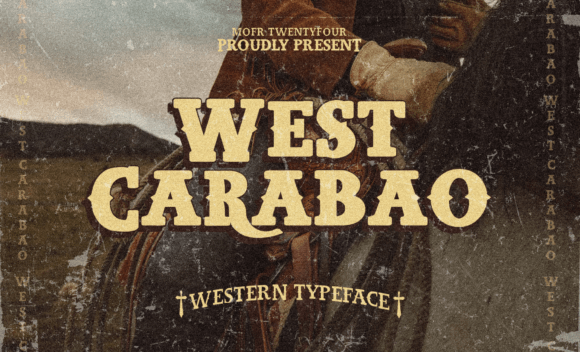
Journey through time with West Carabao, a captivating vintage font that seamlessly weaves together the elegance of the past with the vibrancy of the present. Inspired by the rich heritage of vintage design, this versatile font family, delicately crafted by Mofr24 Studio, offers a diverse selection of styles, ranging from the slender Thin to the bold Black, each accompanied by an alluring italic counterpart. But that's not all – West Carabao's mesmerizing shadow effect adds an extra layer of depth and intrigue to your designs.
With West Carabao as your creative companion, your imagination will soar as you embark on a design odyssey. Its multilingual prowess makes it a global font, capable of captivating audiences worldwide. Unleash your creativity and craft stunning posters that exude a timeless charm, or elevate your marketing materials with a touch of vintage sophistication. Let West Carabao be the beacon guiding your design endeavors, whether you're creating eye-catching titles, unique T-shirt designs, or captivating game visuals.
Immerse yourself in the boundless possibilities of art with West Carabao as your trusted font. Its versatility knows no bounds, making it the perfect choice for a myriad of projects, be it packaging designs, social media posts, or even logo creations. With West Carabao, the ordinary transforms into the extraordinary, leaving an indelible mark on all who behold it.